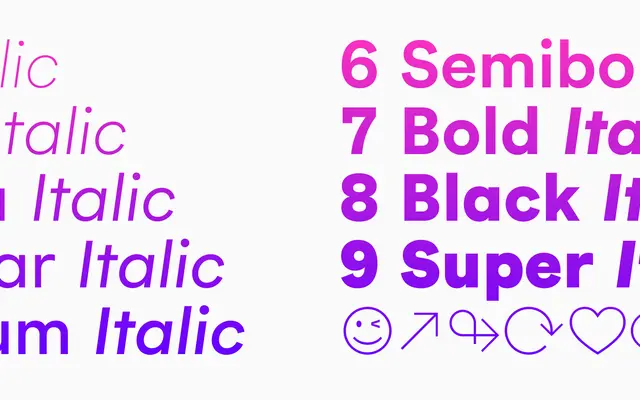
At Geodesic
Arillatype · Pedro Arilla · 2022
At Geodesic specimen from Arillatype
A geometric sans from Pedro Arilla built on straight lines and pure circles, spanning nine weights from Air to Super with matching italics and variable font support.
Designed by Pedro Arilla and released in October 2022, At Geodesic draws on orbital science and synthetic geometry to arrive at a clean, rationally proportioned geometric sans. The family runs to 18 styles across nine weights, each with an italic, and is also available as a variable font with weight and italic axes. A dedicated Retina weight is optimised for high-density screens, and OpenType features include double-storey alternates for 'a' and 'g', old-style numerals and contextual alternates.
Built explicitly from straight lines and pure spheres, with rational proportions inspired by orbital science and synthetic geometry — hallmarks of the geometric sans tradition.